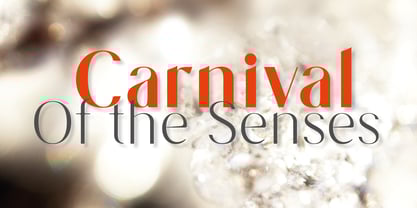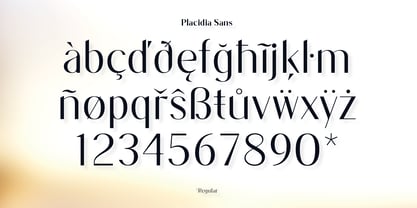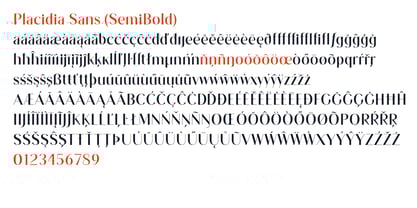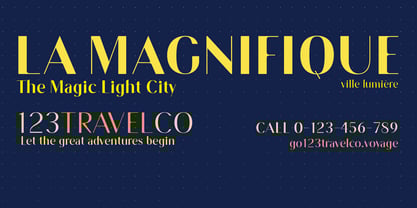
Placidia Sans
by Asgeir Pedersen
The Placidia Sans Font Family was designed by Asgeir Pedersen and published by Asgeir Pedersen. Placidia Sans contains 7 styles and family package options. More about this family
Placidia Sans is intended for all kinds of texts and text sizes, especially headings and titles. Try it together with Placidia or Placidia Display, or for contrast, another geometric style serif font, such as the Burdigala X Sans.
The Placidia fonts, including the Normal and Display versions, are both elegant and stylish, soft and strong, all the way in weights from extra light to extra bold.
Designers: Asgeir Pedersen
Foundry: Asgeir Pedersen